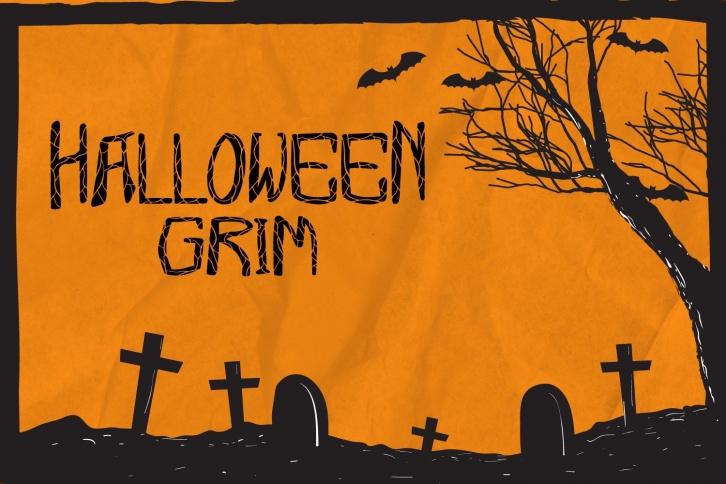
Halloween Grim is a creepy, thin lettered and unique display font. Add it to your Halloween crafts, horror movie posters, t-shirts and anything else that requires a spectacular look.